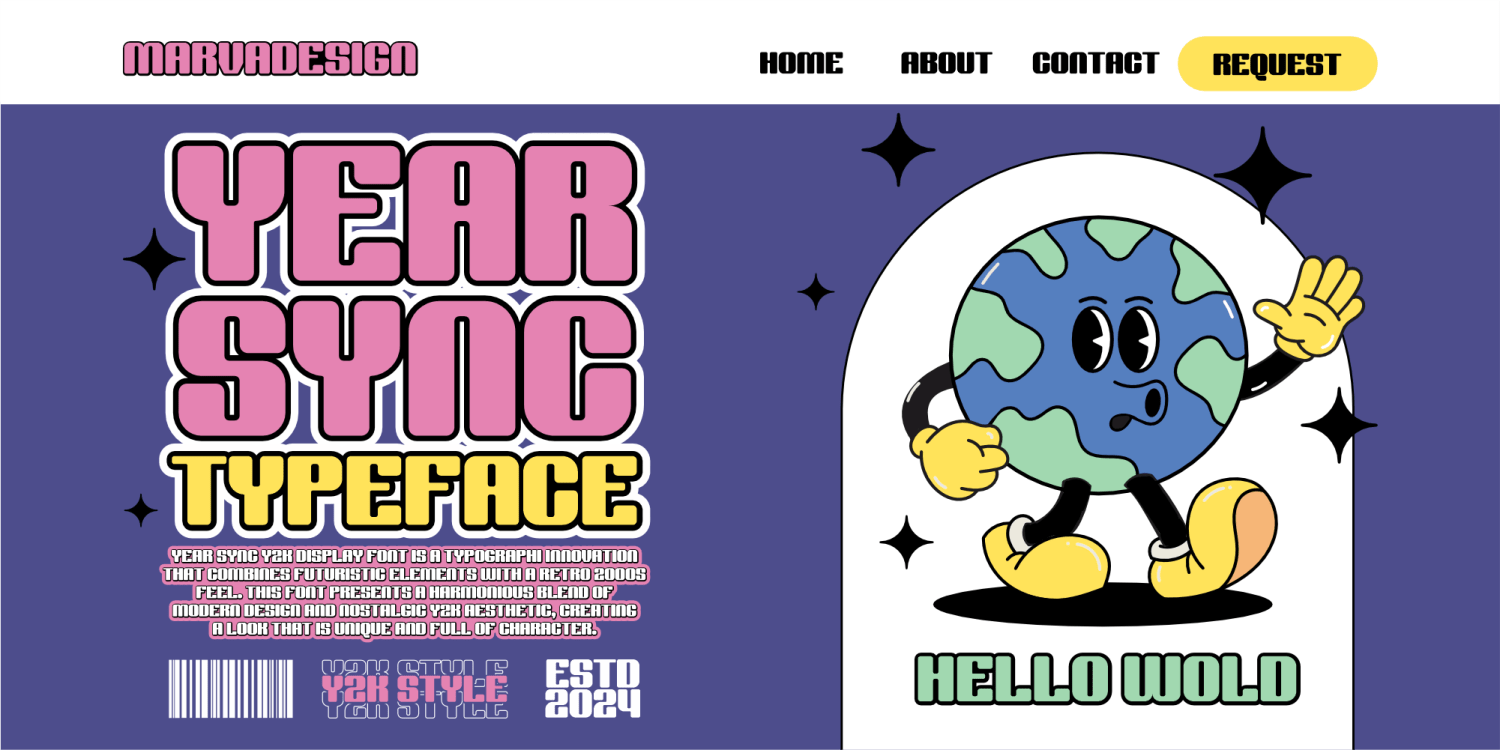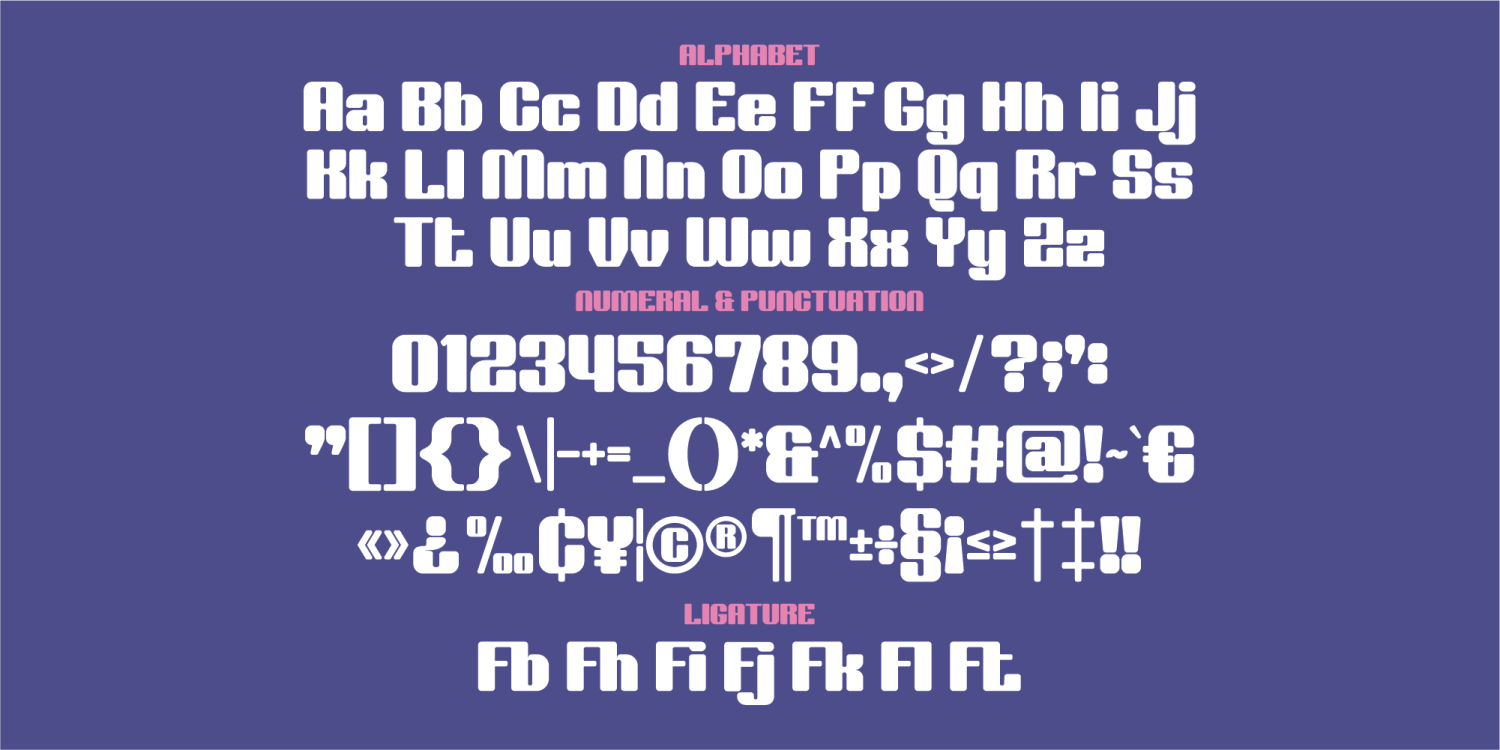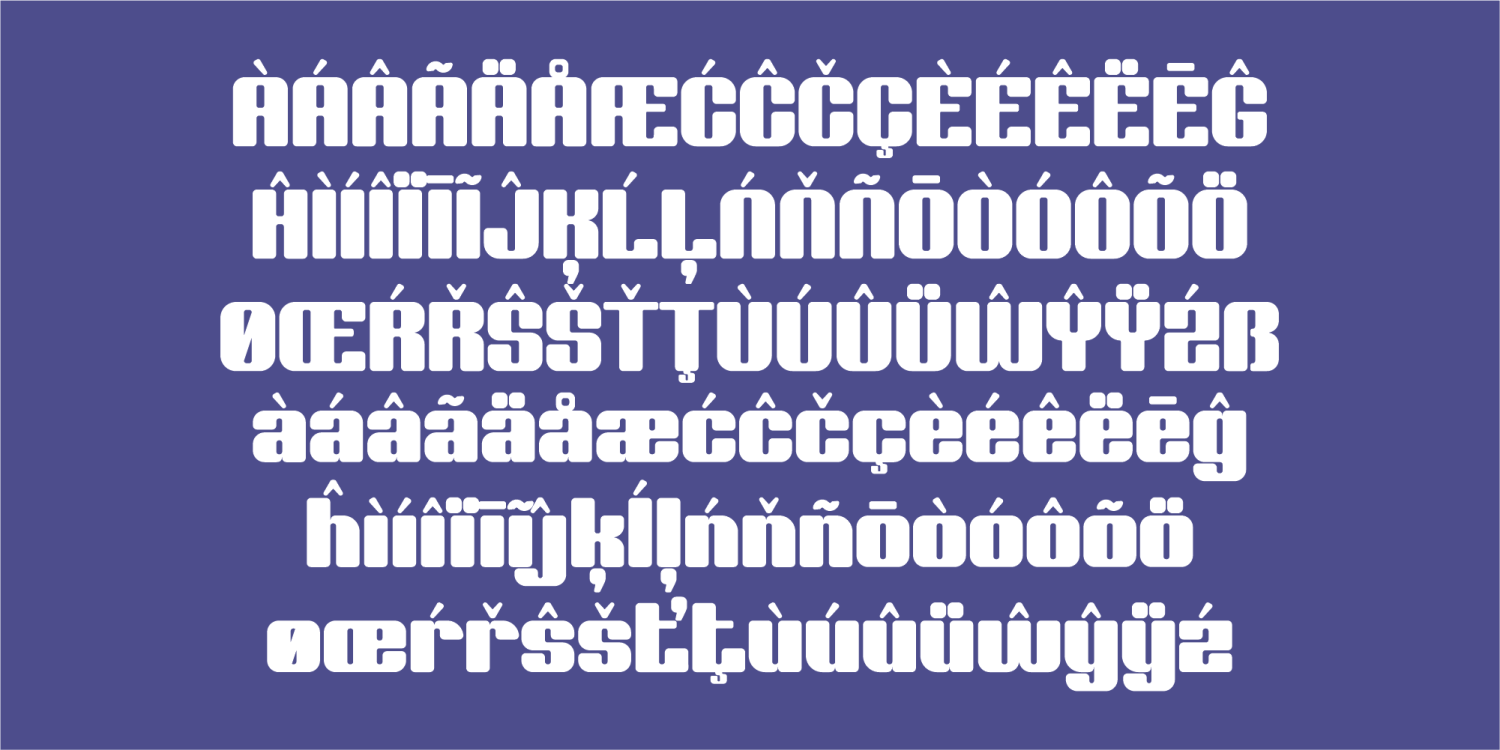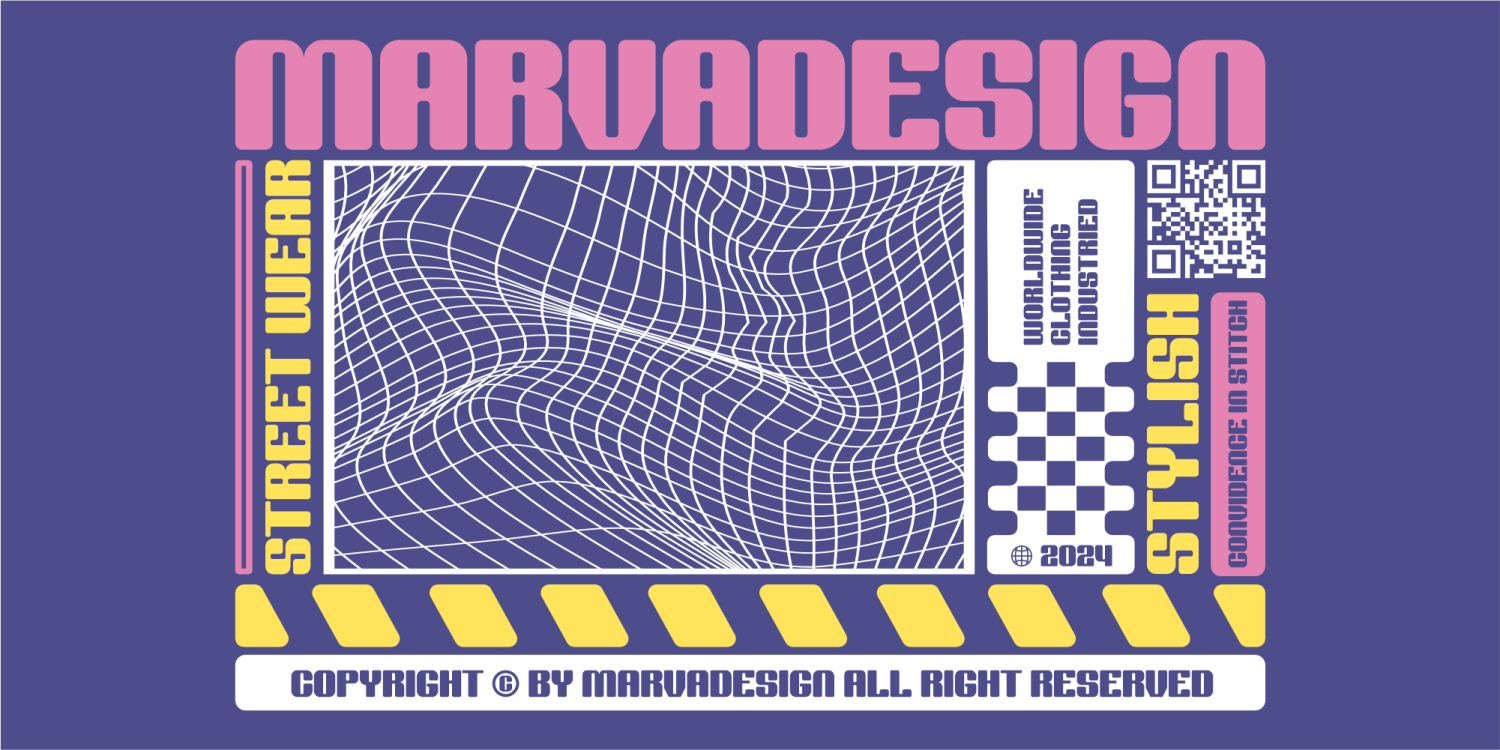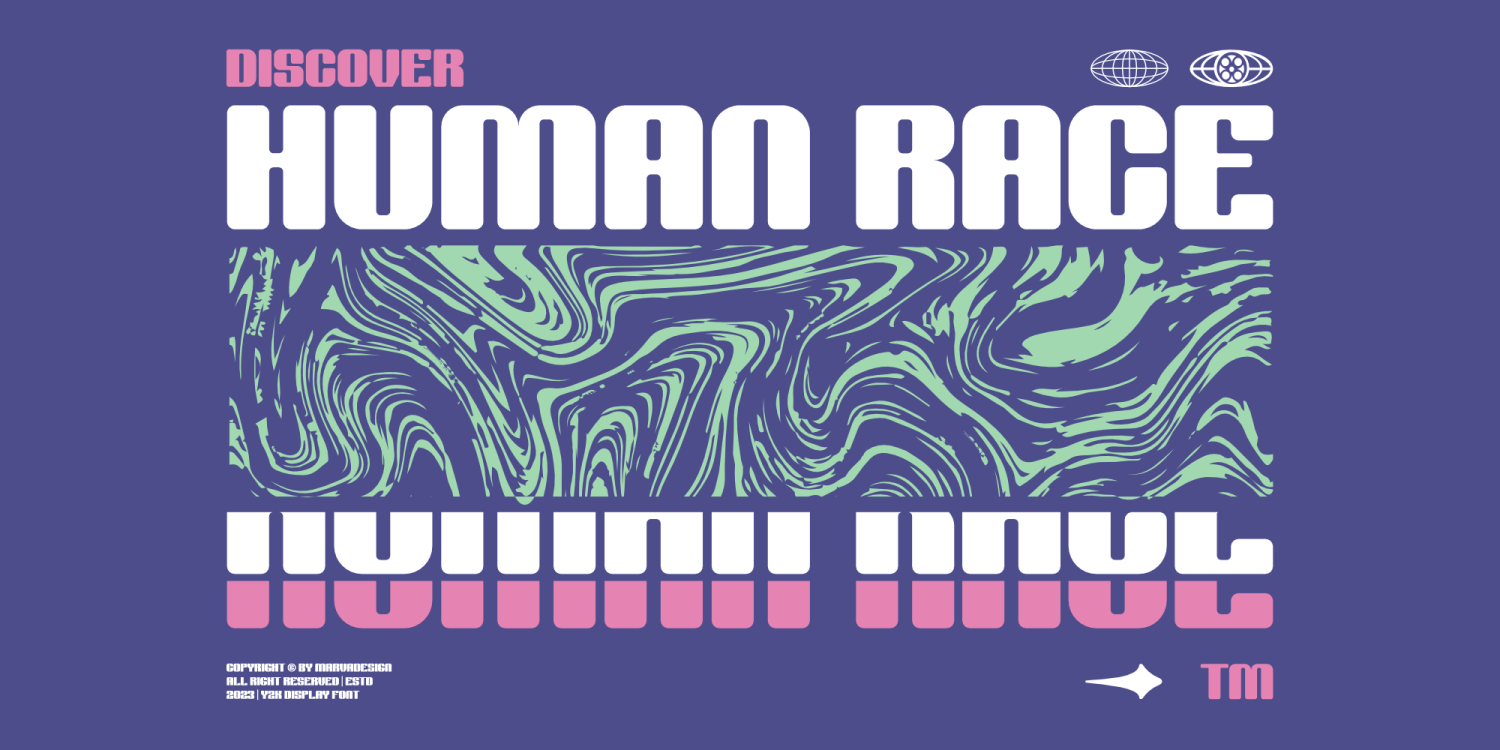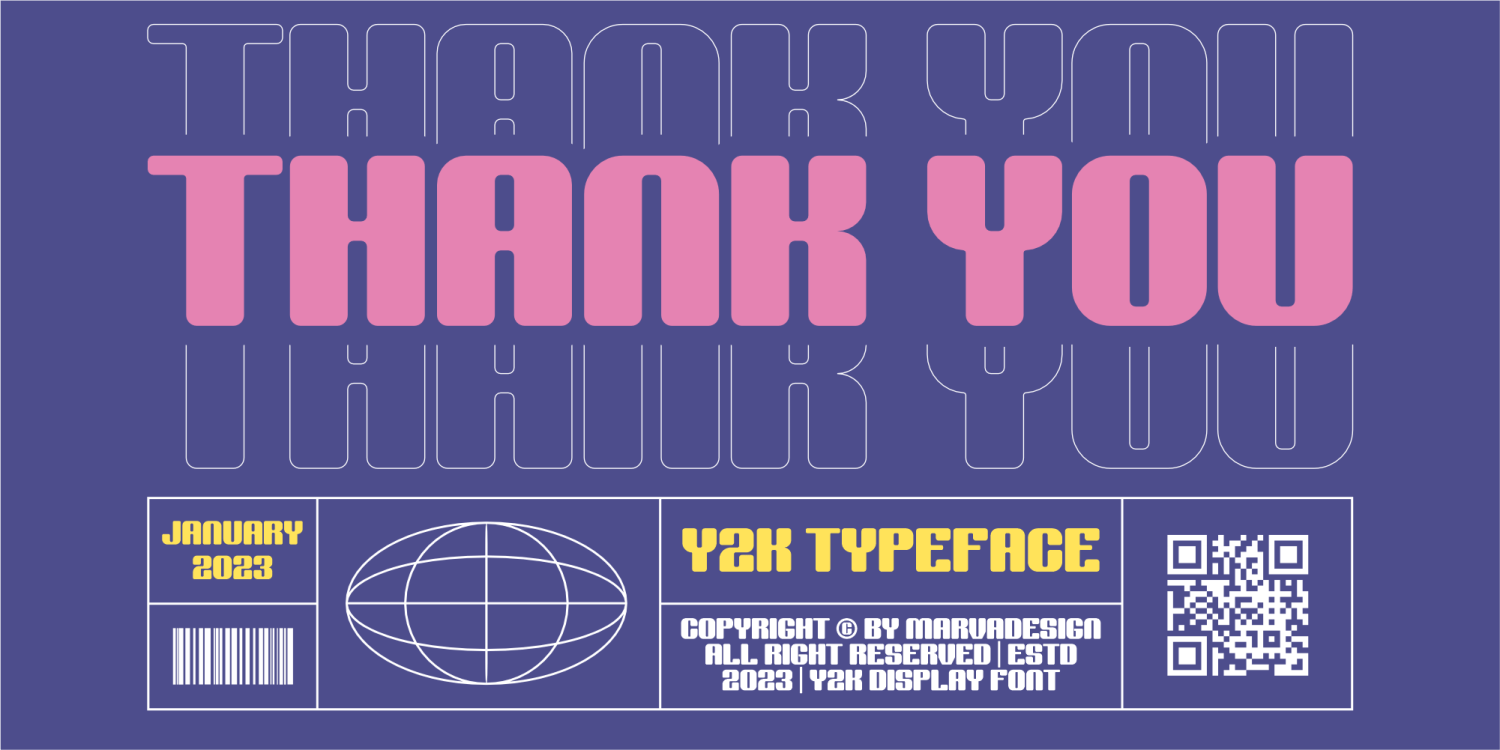
Year Sync
Font Family by Marvadesign
Introducing Year Sync is a modern sans-serif typeface characterized by its smooth, rounded edges and a distinct Y2K aesthetic. This typeface embodies a futuristic yet nostalgic feel, reminiscent of early 2000s digital design trends. Its rounded contours give it a soft, approachable appearance while maintaining a sleek and contemporary structure. Designed with versatility in mind, Year Sync is well-suited for a variety of design applications, including branding, posters, digital interfaces, and futuristic-themed projects. The Y2K influence is evident in its slightly retro-futuristic style, evoking the aesthetics of early web designs, video game interfaces, and technology branding from the late 1990s to early 2000s. With its clean letterforms and modern appeal, Year Sync strikes a balance between readability and uniqueness, making it an excellent choice for designers looking to infuse a nostalgic yet forward-thinking touch into their projects. Whether used in bold headlines or subtle UI elements, this typeface captures the essence of a revival of the Y2K era while maintaining a fresh, contemporary look.